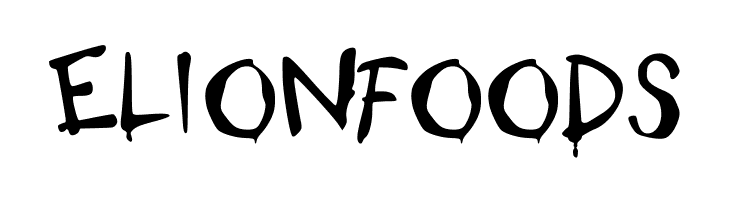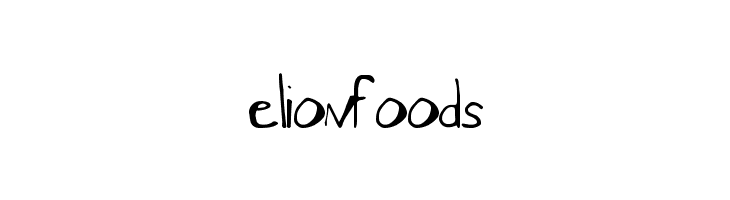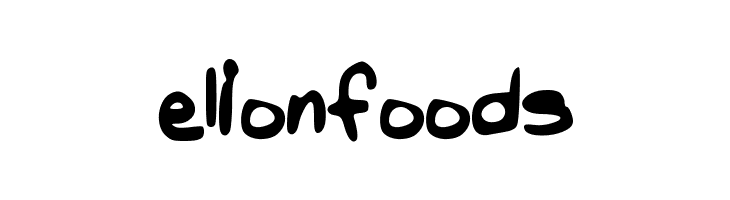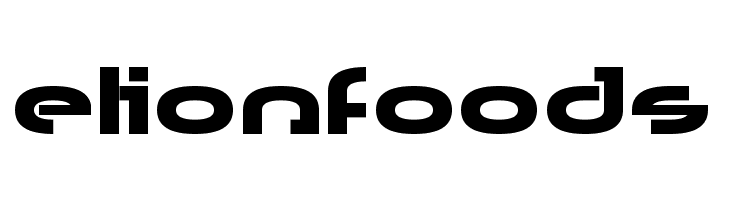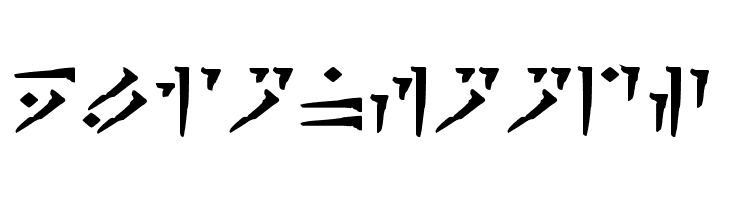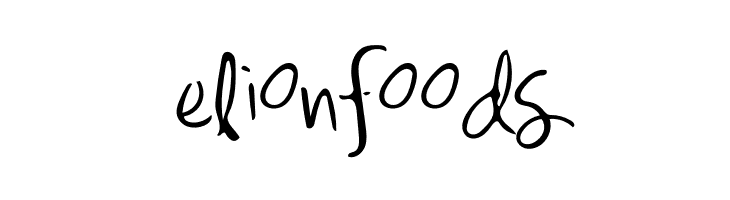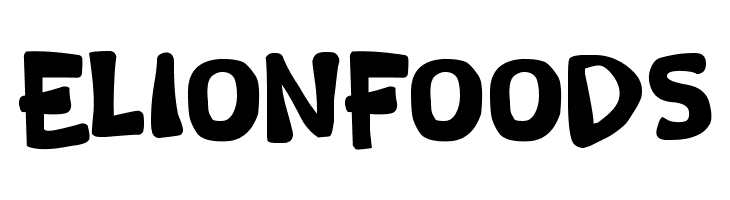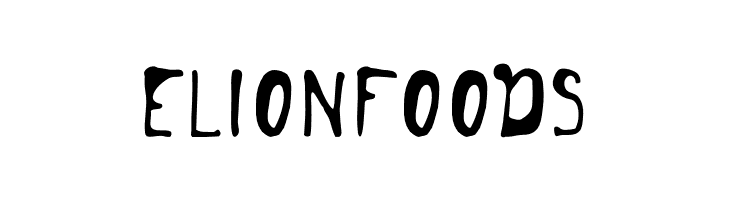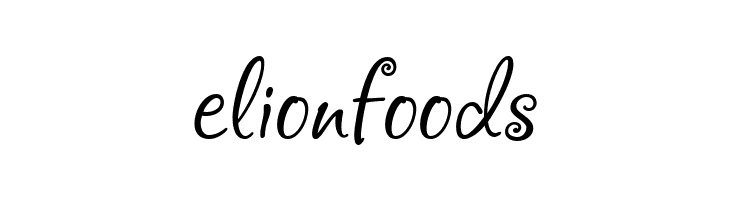
A bold, hand-drawn font with a playful, graffiti-like style.
A playful, bold, hand-drawn font with a whimsical and artistic style.
A bold, rounded font with a futuristic and playful design.
A playful and quirky font with irregular, dynamic letterforms.
A futuristic, geometric font with thin lines and sharp angles.
A bold, geometric font with a hollow interior and futuristic design.
A bold, handwritten font with a dynamic, brush-like style.
A playful, hand-drawn font with tall, narrow letters and a whimsical style.
A bold, futuristic font with geometric shapes and sharp angles.
Geometric twenty-sided polygon design with bold numbers.
A bold, angular, and italicized typeface with a futuristic and energetic style.
A geometric and futuristic font with lines and dots, ideal for modern and sci-fi themes.
A bold, decorative script inspired by ancient runic alphabets with a mythical and adventurous style.
A bold, geometric font with angular lines and a modern aesthetic.
An ornate and decorative font with intricate swirls and flourishes.
A Gothic-inspired font with playful, whimsical elements and sharp serifs.
A playful, bold font with dynamic strokes and a hand-drawn feel.
A bold, expressive brush script font with dynamic, fluid strokes.
A playful, casual handwritten font with dynamic and lively letterforms.
A playful, bold, hand-drawn font with thick, rounded strokes.
A playful, quirky font with tall, narrow letterforms and a hand-drawn feel.
A bold, hand-painted style font with expressive, dynamic strokes.
A bold, playful font with a hand-drawn, irregular style.
A whimsical, playful font with tall, narrow letterforms and exaggerated serifs.
A playful, hand-drawn font with bold, irregular strokes and a whimsical style.
A whimsical, curly font with decorative swirls on each character.